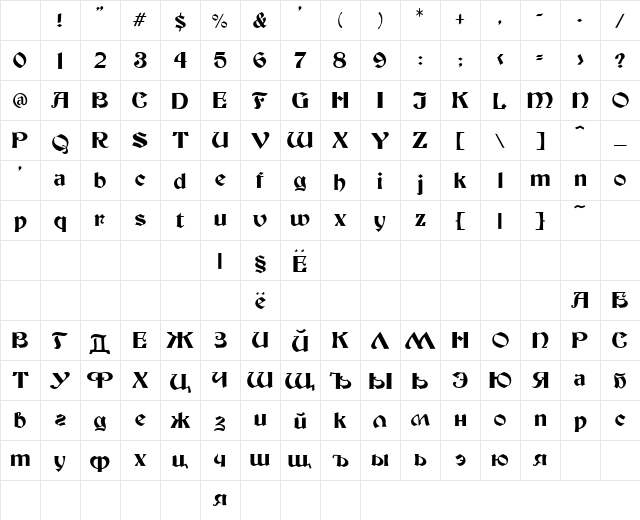
Complete Becker-Medium Medium glyph index. Displaying only characters natively supported by Becker-Medium Medium font.
Becker-Medium is a composed and adaptable typeface that performs quietly and consistently across a wide range of design contexts.